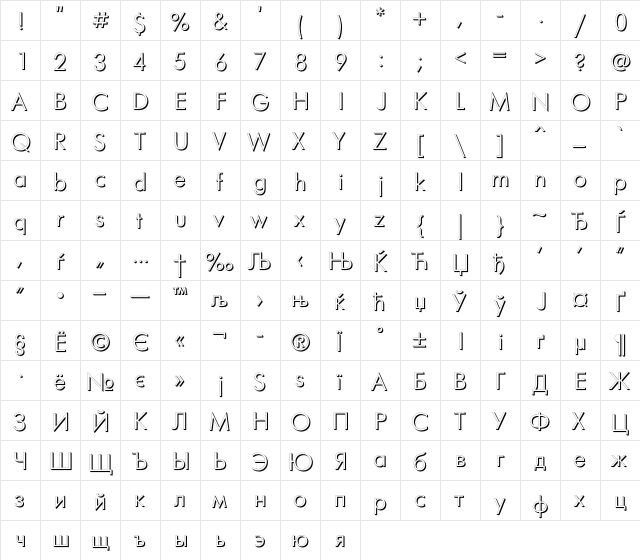
FuturaFuturisVolumeC Regular
Design Context for FuturaFuturisVolumeC Typeface
FuturaFuturisVolumeC channels digital-age aesthetics through its sharp, structured letterforms — ideal for brands that want to signal innovation.